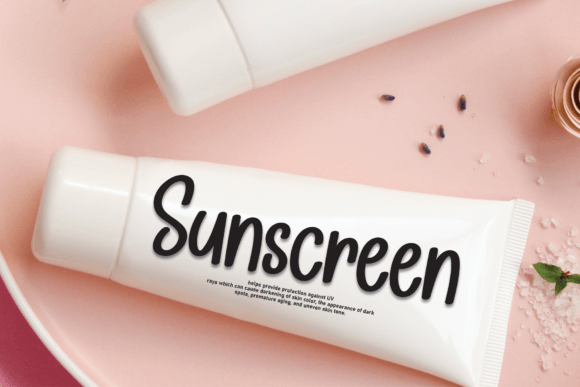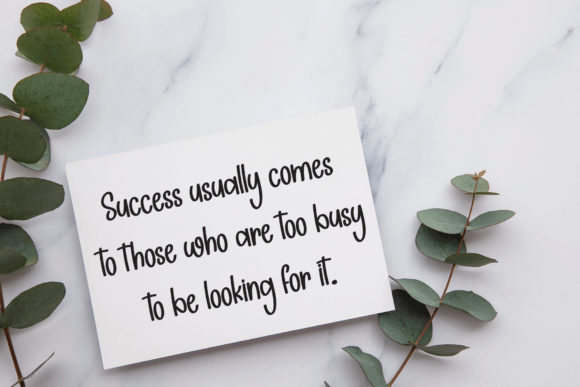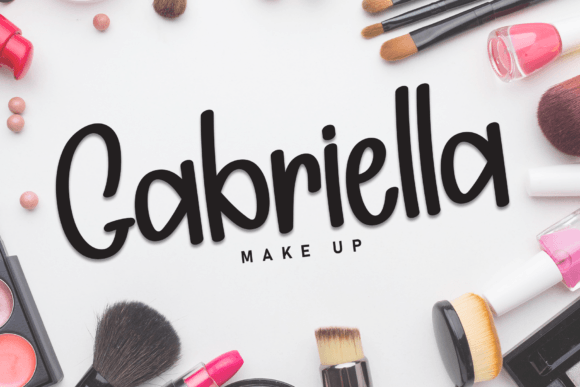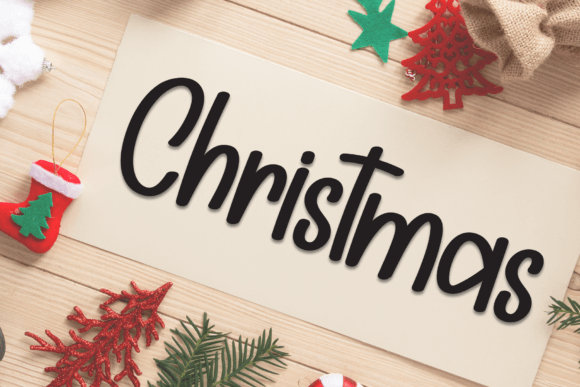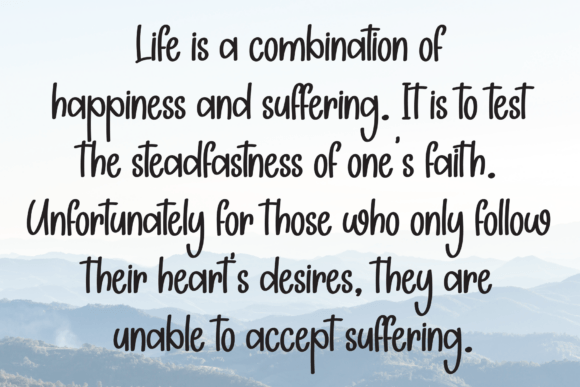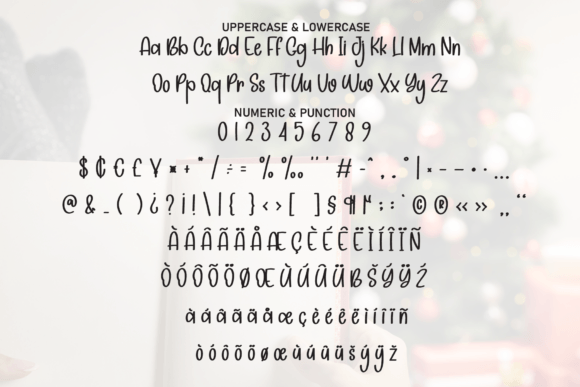
Discover the Magic of Christmas Histories Font
It’s that time of the year again – the season of joy, giving, and endless design projects. I still remember the year I was tasked with creating a Christmas card for a client’s family reunion. I spent hours scrolling through font libraries, searching for the perfect one that would capture the warmth and nostalgia of the holiday season. That’s when I stumbled upon Christmas Histories, a charming handwritten font that instantly transported me to a winter wonderland.
A Personal Review of Christmas Histories Font
- 🎄 The playful, handwritten letters that evoke feelings of nostalgia and warmth.
- ✅ The unique, personal touch that adds a special flair to any Christmas project.
- 💫 The font’s versatility, making it perfect for festive cards, cozy decorations, and cheerful holiday messages.
While Christmas Histories is an amazing font, there are a few things to keep in mind:
- 🤔 The font may not be suitable for very formal or corporate designs, as it has a distinctly playful and personal feel.
- ⚠️ Some letters may require manual kerning to achieve optimal spacing.
- Experiment with OpenType features, such as ligatures and stylistic alternates, to add visual interest to your design.
The Story Behind Christmas Histories Font
Christmas Histories was designed by a talented typographer who wanted to capture the essence of the holiday season. Inspired by vintage Christmas cards and festive decorations, the font was crafted to bring joy and warmth to designs. Whether you’re a designer, crafter, or creative hobbyist, Christmas Histories is sure to become a favorite in your font library.
| Font Name | Christmas Histories Font |
| Author | Creativewhitee |
Q: What type of designs is Christmas Histories best suited for?
A: Christmas Histories is perfect for festive cards, cozy decorations, and cheerful holiday messages.
Q: Does Christmas Histories support OpenType features?
A: Yes, Christmas Histories supports OpenType features, including ligatures and stylistic alternates.